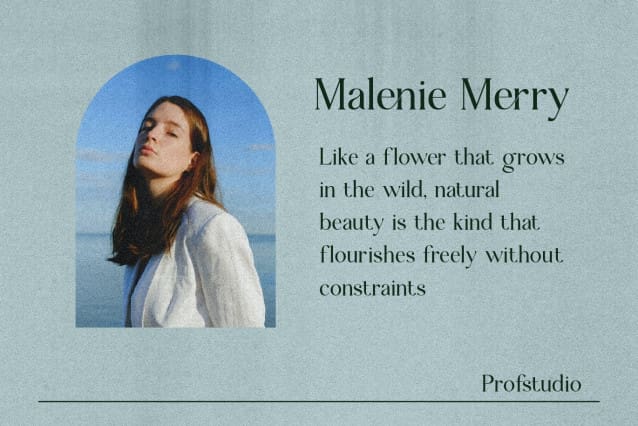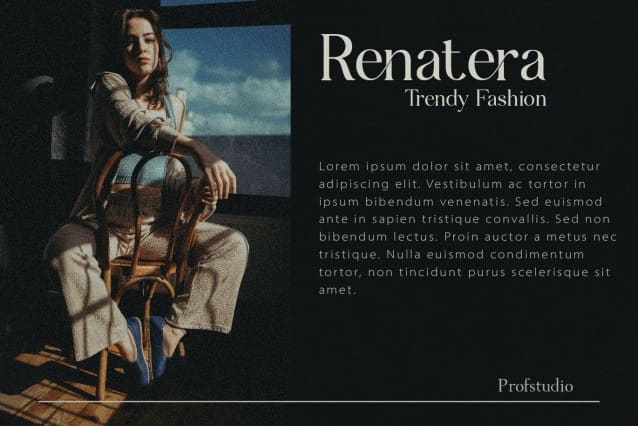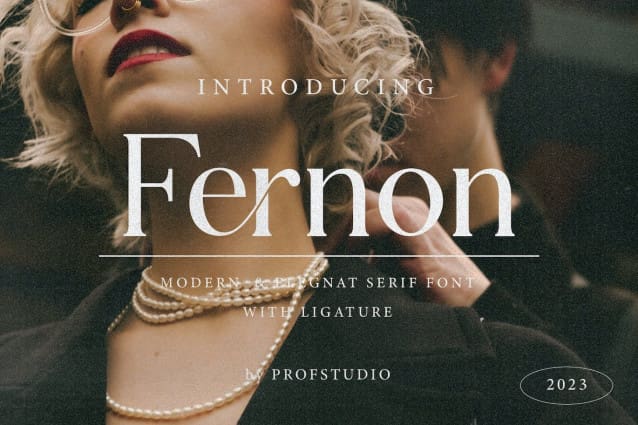
Fernon Font
Fernon Font, a modern and luxurious Serif font. Graceful curves, timeless look: the ideal choice for your brand. Enhance beauty and fashion with Fernon